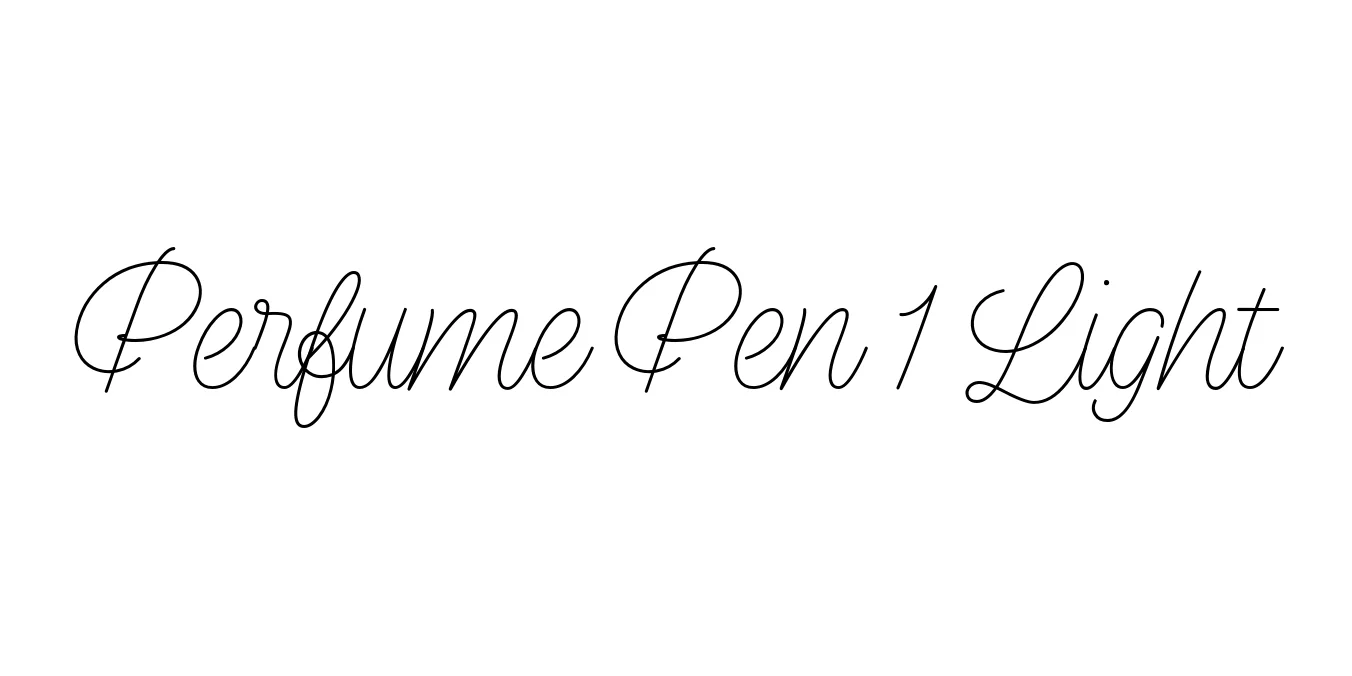
Perfume Pen 1 Light
Designed by Billy Argel
Perfume Pen 1 Light is a refined and elegant script typeface designed to emulate the fluid, sophisticated motion of a fine-tipped ink pen. Part of the broader Perfume Pen collection, this specific light weight was developed to provide designers with a more delicate and airy alternative to traditional handwriting fonts. Its aesthetic is rooted in modern luxury and artisanal craftsmanship, making it a standout choice for high-end creative projects.
The architecture of Perfume Pen 1 Light focuses on graceful curves and seamless connections between characters. It maintains a high level of legibility despite its thin strokes, a technical feat achieved through careful kerning and consistent vertical alignment. This font has become a favorite in the worlds of fashion and cosmetics, where its signature-like quality adds a layer of exclusivity and personal touch to digital and print media.
Perfume Pen 1 Light Best Uses
Adds a sophisticated and personal handwritten touch to elegant stationery.
Ideal for logo designs and packaging for beauty and perfume products.
Perfect for fashion magazines and lifestyle blogs requiring a chic, airy header.
Functions effectively as a professional signature for photographers and artists.